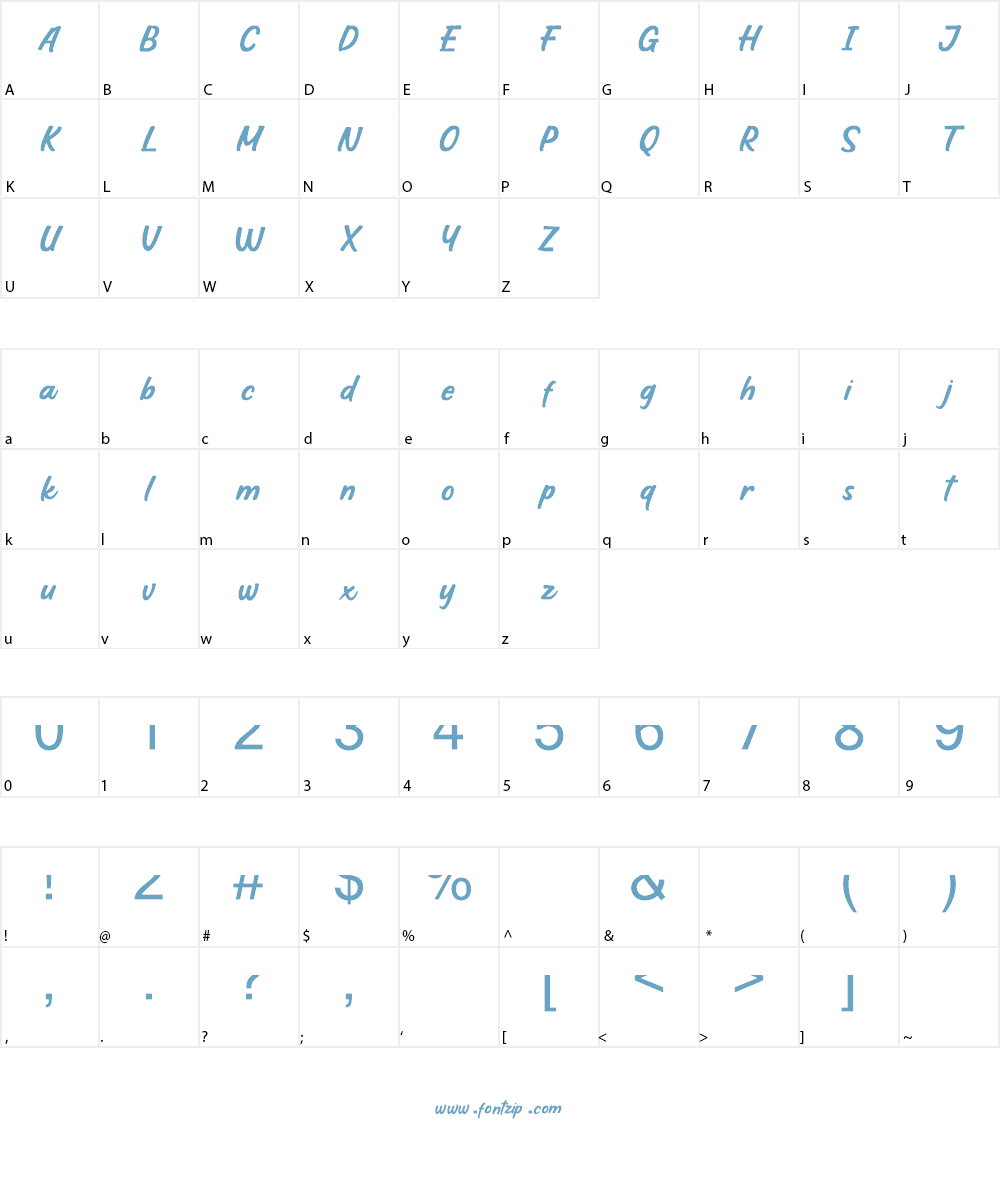
A bold and casual script typeface with implementation of markers handwriting vibes. Some are connected and the others aren't. Perfectly fit for casual logotype, food and beverage branding, book covers, anytime you need to tell fun stories, Hoffers is the answer.